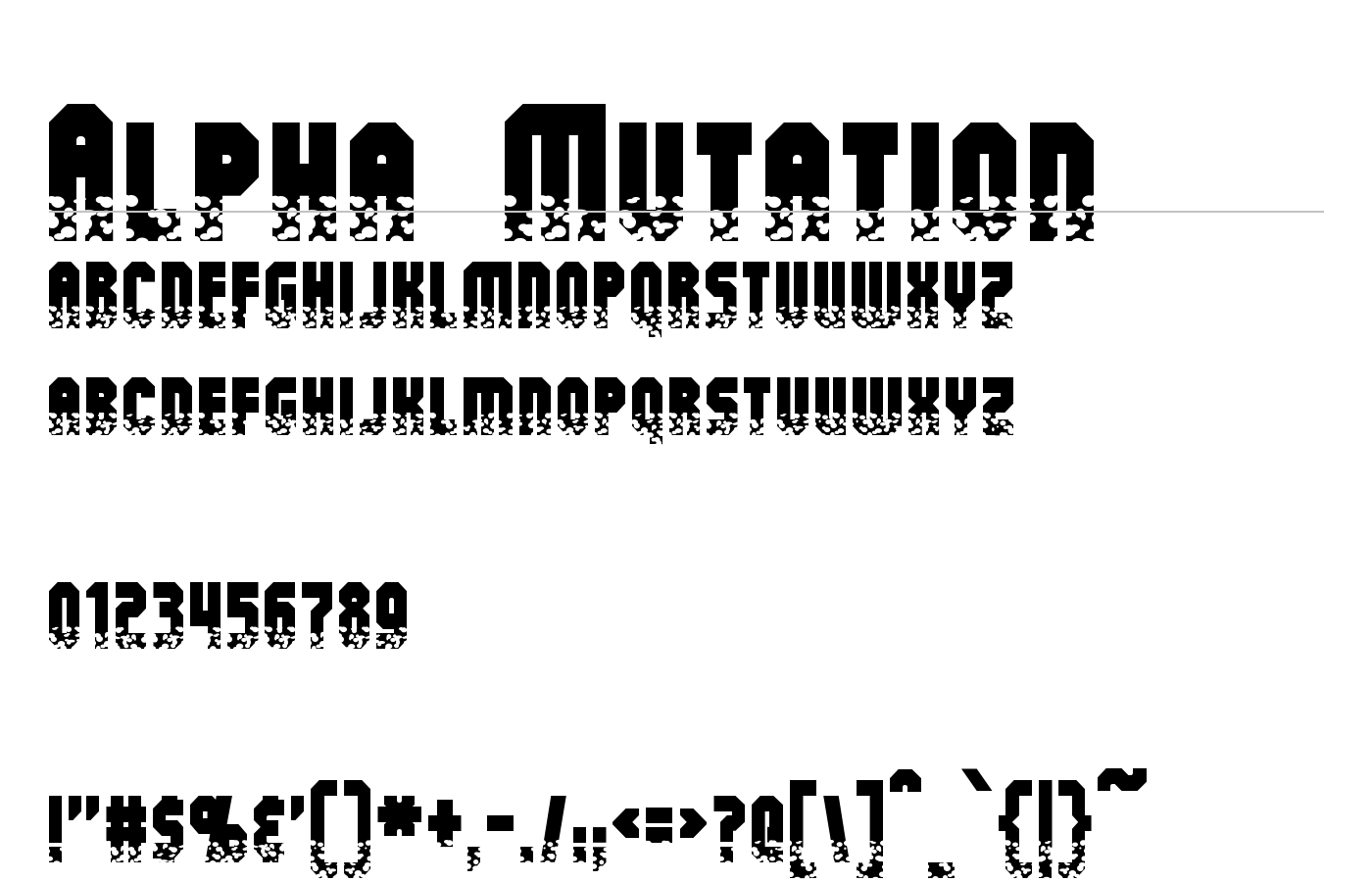
Alpha Mutation is a bold, condensed sans serif font with a striking pixelated "dissolving" effect along the bottom edges of each character. Its strong geometric shapes combined with the glitch-like texture lend it a futuristic, tech-inspired vibe perfect for edgy branding, digital media, and attention-grabbing headlines. This font works best in display uses where its unique style can shine without compromising readability.
Alpha Mutation Font
About Alpha Mutation Font